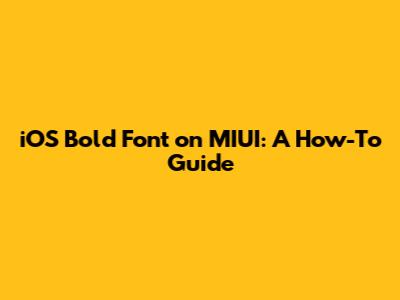
- Open the Themes App: Look for the app icon that looks like a little suitcase or a palette. It's usually called 'Themes'.
- Search for iOS Themes: In the search bar within the Themes app, type things like "iOS", "iPhone", or "Bold Font". You'll likely see a bunch of themes pop up.
- Preview and Select: Browse through the results. Look for themes that explicitly mention an iOS style or have screenshots showing a font that looks like what you're after. Crucially, check the theme's details or screenshots for font previews. Many themes will show you how the text looks. Look for one that prominently features a bold font.
- Download and Apply: Once you find a theme you like, hit the 'Download' button. After it's downloaded, you'll see an 'Apply' option. Tap that!
- Font Settings: Sometimes, applying a theme changes the entire look. If the font isn't exactly what you want, or if the theme applied other changes you don't like, you can usually go to Settings > Display > Font (the exact path might vary slightly depending on your MIUI version) and see if the downloaded font is available to select separately. Or, you might need to apply the theme and then just the font from within the theme's customization options if available.
- Find a Font Management App: Search the Google Play Store for apps like "iFont", "HiFont", or similar font installers. Read reviews carefully! Look for apps that are well-rated and have recent updates.
- Search for iOS Fonts within the App: Once installed, open the font app. These apps often have their own libraries of fonts you can download, or they might allow you to import font files (
.ttfor.otf) that you find elsewhere on the internet. - Download an iOS-Style Font: Look for fonts named something like "San Francisco" (the default iOS font) or other clean, sans-serif fonts that resemble the iOS style. Ensure the font you download is indeed bold or has a bold variant.
- Install the Font: Follow the app's instructions to install the font. This process might require root access on older MIUI versions or specific workarounds on newer ones. Often, these apps will guide you through changing the system font setting.
- Apply the Font: Once installed, you'll typically go back to your phone's Settings > Display > Font menu. The newly installed font should appear in the list of available fonts. Select it and apply.
- Rooting Your Device: This is the most powerful, but also the riskiest, method. Rooting gives you superuser access to your phone's system files. Warning: Rooting your device will likely void your warranty, can potentially brick your phone if done incorrectly, and may disable certain security-sensitive apps (like banking apps). You'll need to research the specific rooting procedure for your exact Xiaomi/Redmi model and MIUI version.
- Using a Root File Explorer: Once rooted, you can use apps like MiXplorer or Solid Explorer (with root privileges enabled) to navigate to the system font directory (often something like
/system/fonts/). - Replacing Font Files: You would need to find the actual font files for an iOS bold font (often in
.ttfformat) online. Be very careful where you download these from to avoid malware. You would then rename the downloaded iOS font file to match the default MIUI font file (e.g.,Miui-Regular.ttfor similar) and replace the original file in the system directory. Back up the original font file first! This is crucial in case you need to restore it. - Changing Permissions: After replacing the file, you'll need to set the correct file permissions for the new font file (usually read/write/execute for owner, read for group and others -
0644). - Reboot: A simple reboot of your phone should then load the new bold font system-wide.
- Font Doesn't Apply System-Wide: This is super common, especially with third-party apps or less comprehensive themes. Sometimes, the font only sticks in certain apps (like Settings or Messages) but not others (like the home screen or status bar).
- Solution: Try reapplying the theme or font. If using an app, clear its cache and try again. Check the font app's settings for options like "apply globally" or "apply to all apps." If all else fails, a reboot is your best friend. If it still doesn't work, the font you chose might not be fully compatible with MIUI's system architecture. You might need to find a different font or theme that explicitly states MIUI compatibility.
- Font Looks Glitchy or Distorted: Ever apply a font and it looks jagged, blurry, or parts of letters are missing? Yikes!
- Solution: This usually means the font file itself is corrupted, or it's not optimized for Android/MIUI rendering. Try downloading the font file again from a different source, or try a completely different iOS-style font. Ensure you're using a font file format that your chosen app or method supports (usually
.ttfor.otf).
- Solution: This usually means the font file itself is corrupted, or it's not optimized for Android/MIUI rendering. Try downloading the font file again from a different source, or try a completely different iOS-style font. Ensure you're using a font file format that your chosen app or method supports (usually